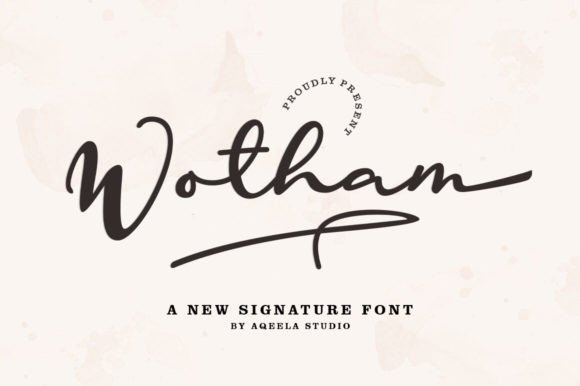
Introducing Wotham Font, an exquisite signature font that will enchant your designs with its modern and alluring typeface. Crafted by the talented team at Aqeela Studio, Wotham is a stunning script font designed to elevate the visual impact of your branding projects.
Step into a world of elegance and refinement with Wotham Font. Its meticulously crafted characters exude a timeless charm that effortlessly complements a wide range of design styles. Whether you're creating logos, branding elements, cards, packaging, or any other creative project, Wotham Font is the perfect choice to add a touch of sophistication and professionalism.
Unleash your creativity and let Wotham Font transform your designs into captivating masterpieces. Picture your brand's logo rendered in Wotham's graceful lines, leaving an unforgettable impression on your audience. Envision your wedding invitations adorned with Wotham's delicate script, imbuing your special day with an air of romance and elegance.
With Wotham Font, the possibilities are endless. Its versatility extends to book covers, printed quotes, merchandise, and more. Allow Wotham's charm to captivate your audience and elevate your designs to new heights.